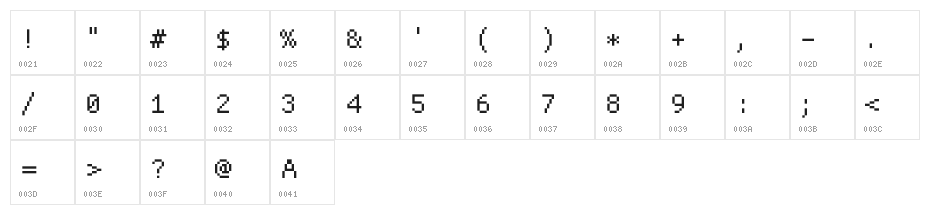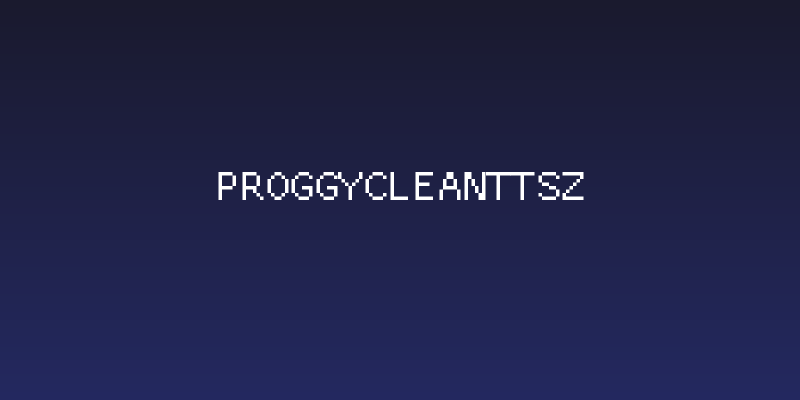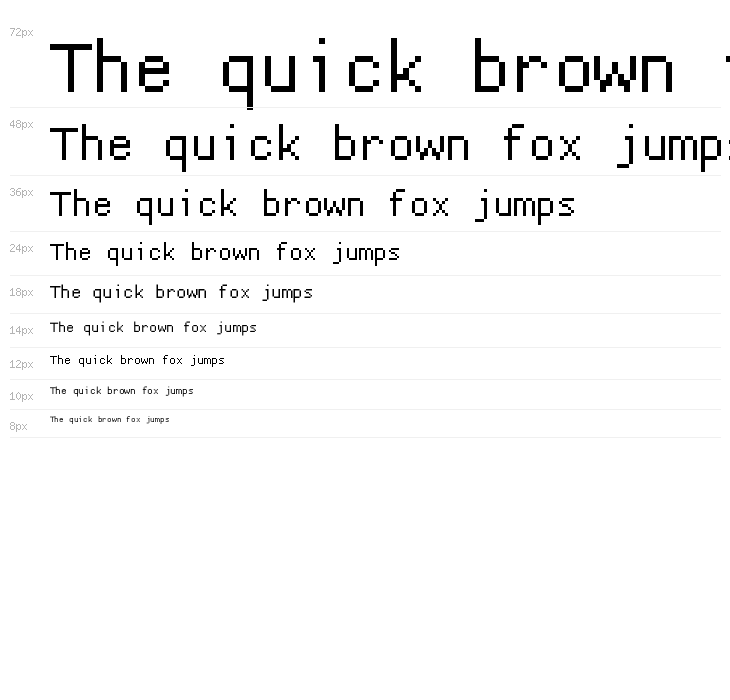
ProggyCleanTTSZ Font
ProggyCleanTTSZ Description
This font features a clean, monospaced design with a pixelated appearance, reminiscent of early computer displays. Each character is uniformly spaced, providing a consistent and orderly look. The uppercase and lowercase letters maintain a simple, geometric form, while the numbers and special characters are clearly defined and easy to distinguish. The overall style is utilitarian, making it suitable for coding environments or retro-themed projects.
| Overall Style | Retro |
| Use Case | Coding, Digital Art, Retro Designs |
| Proposed Projects | Perfect for coding editors, retro video game graphics, digital art projects, and any design requiring a vintage computer aesthetic. |